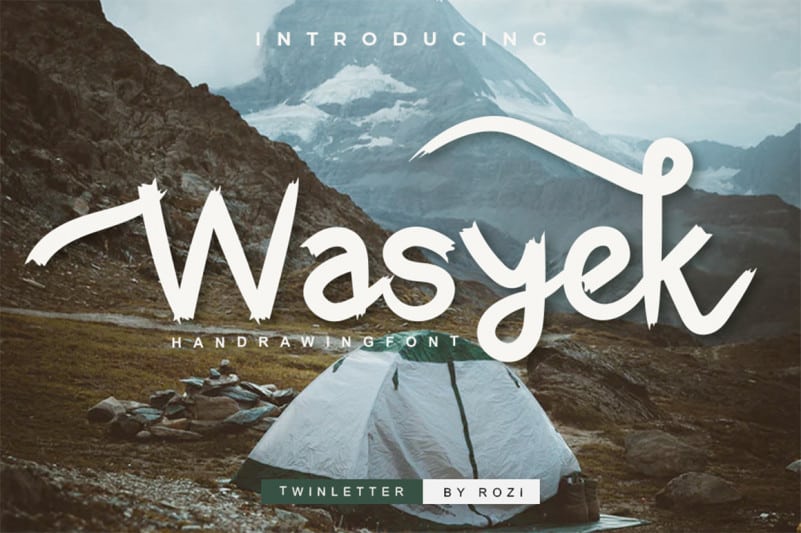
Wasyek Script Font
Wasyek Script Font is a cute and casual handwritten font with an incredibly friendly feel. Use this gorgeous and unique font to bring any DIY project to life!